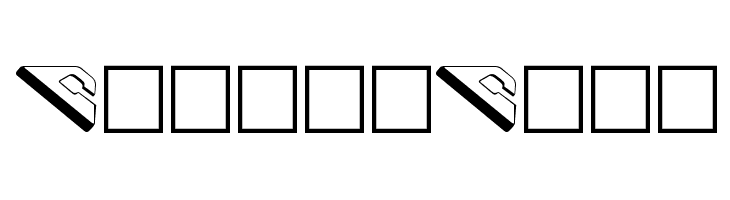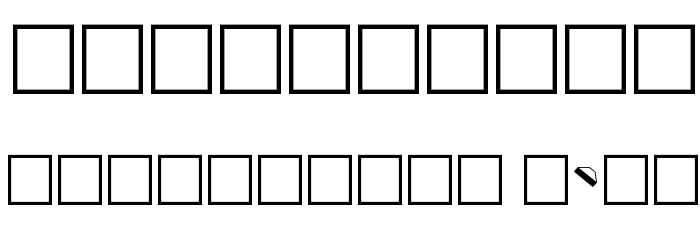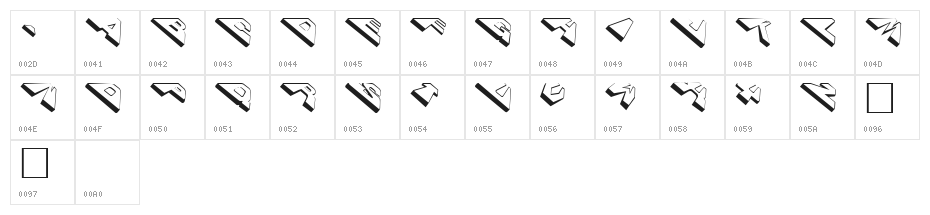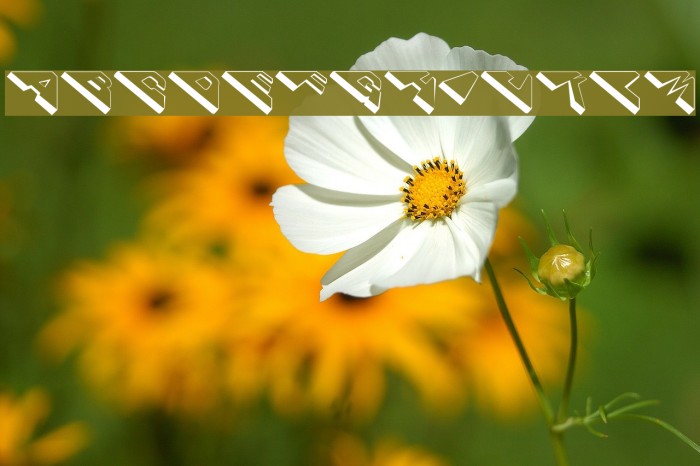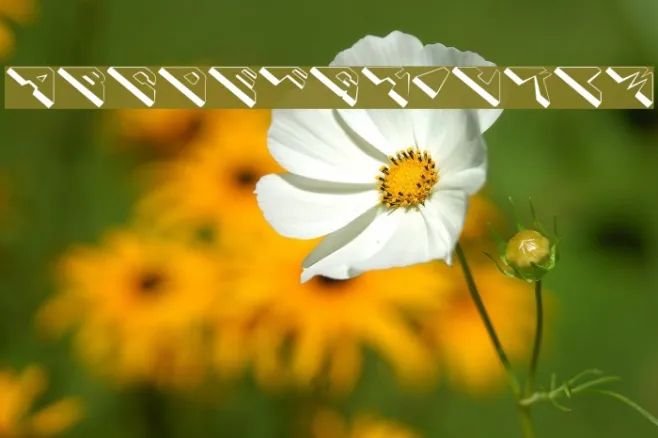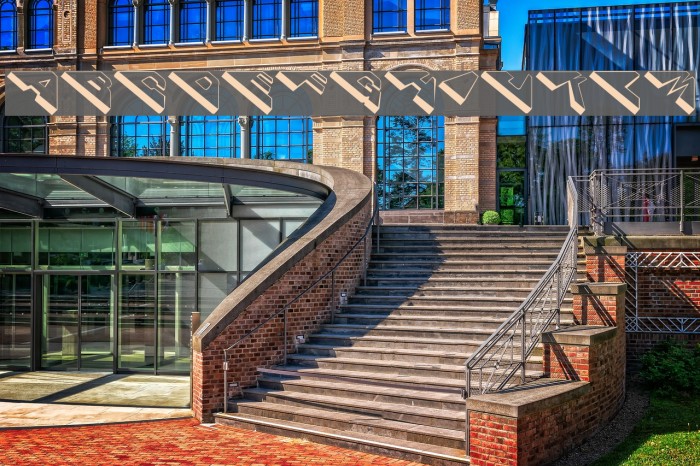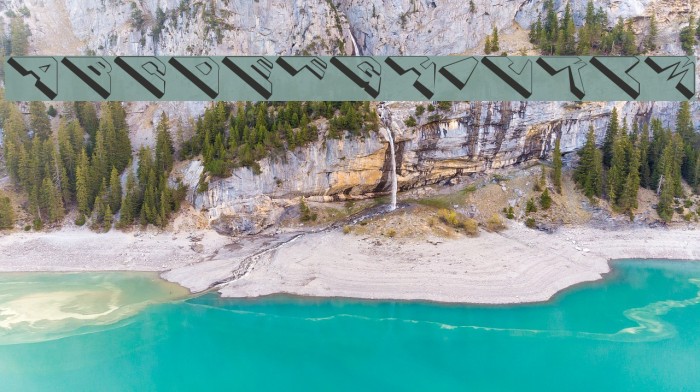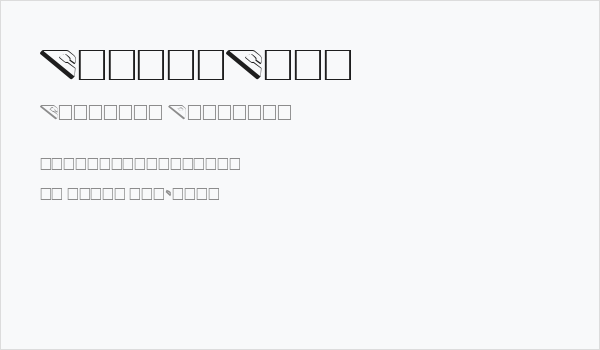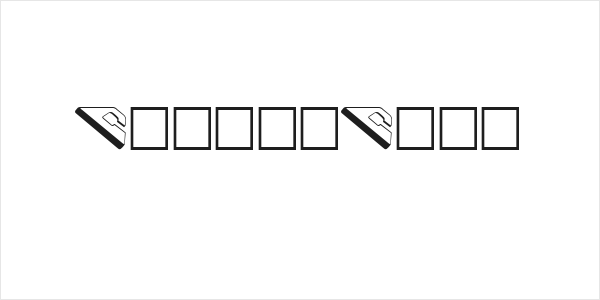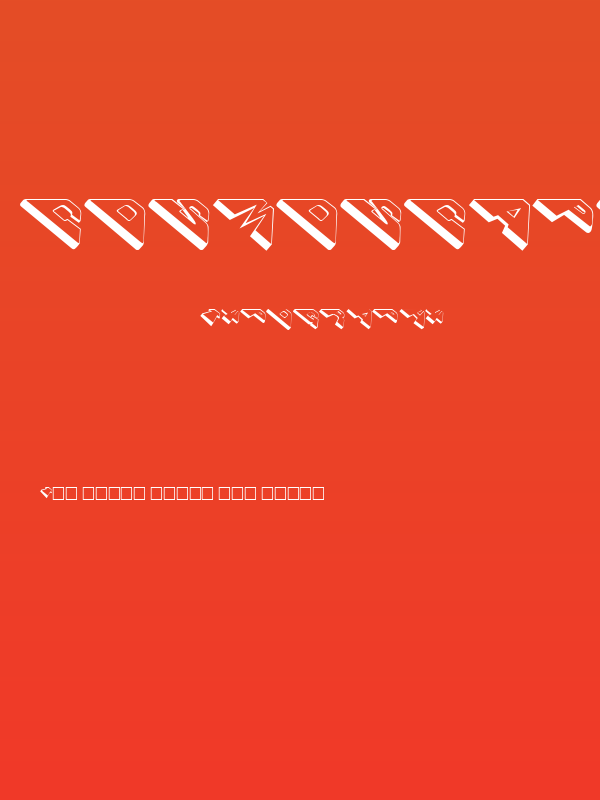
CosmosCaps Font
CosmosCaps Description
This font features a bold, three-dimensional design with a futuristic and geometric aesthetic. Each character is crafted with sharp angles and a distinct shadow effect, giving the impression of depth and movement. The uppercase letters are particularly striking, with a blocky, architectural style that suggests a sense of solidity and strength. The overall look is modern and dynamic, making it suitable for projects that require a bold statement. The font's unique style is eye-catching and can be used to create a strong visual impact.
| Proposed Projects | Ideal for sci-fi themed designs, video game titles, posters, and branding that requires a modern and impactful look. |